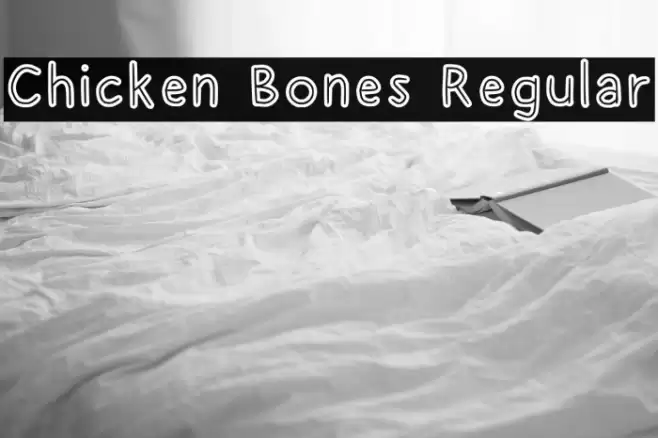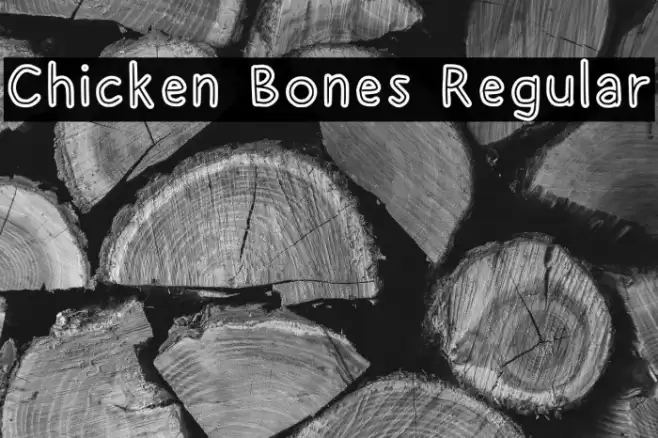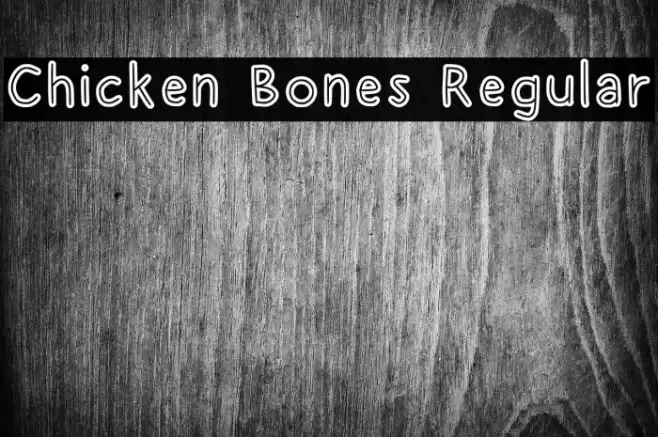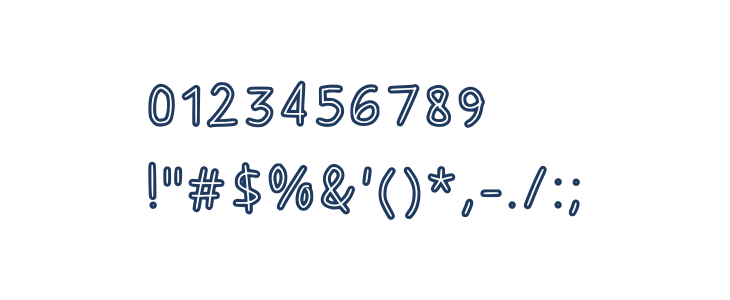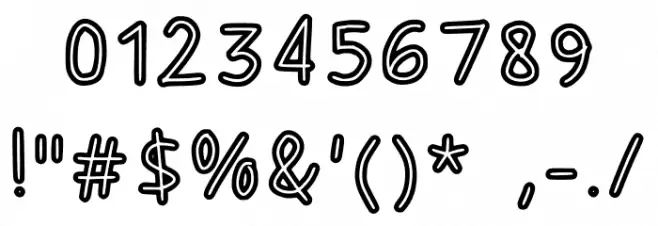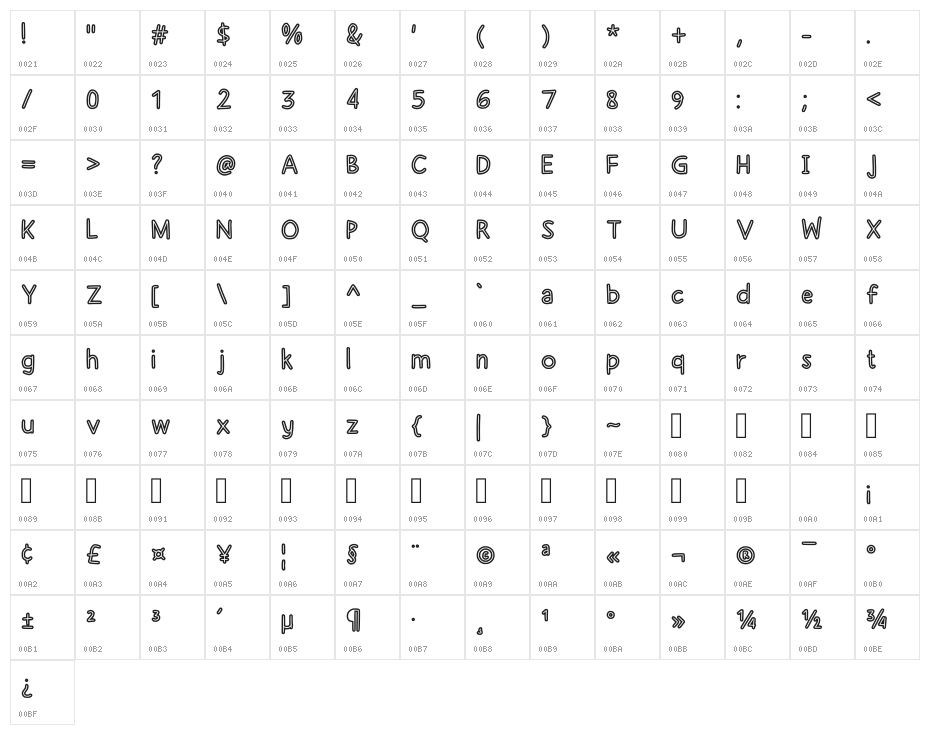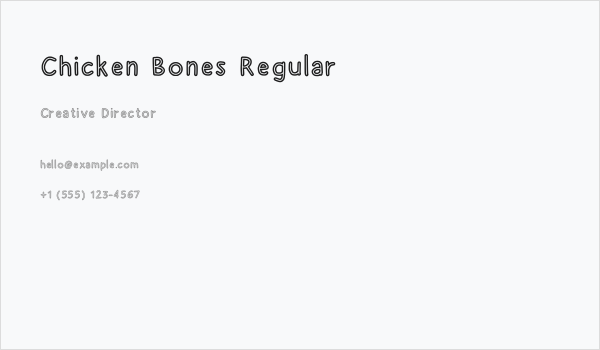
Chicken Bones Regular Font
Chicken Bones Regular Description
This playful and quirky font features a hand-drawn style with a bold, outlined appearance. Each character is crafted with a consistent stroke width, giving it a cartoonish and informal look. The letters are slightly rounded, adding a friendly and approachable feel. The font maintains a uniform height across uppercase and lowercase letters, ensuring readability while retaining its unique charm. The numbers and special characters are designed to match the whimsical style, making it suitable for creative and fun projects.
A playful, hand-drawn font with bold outlines and a cartoonish style from Regular fonts.
- Font: Chicken Bones Regular
- Proposed Projects: Ideal for children's books, comic strips, playful branding, and creative posters.
- Overall Style: Playful, Quirky